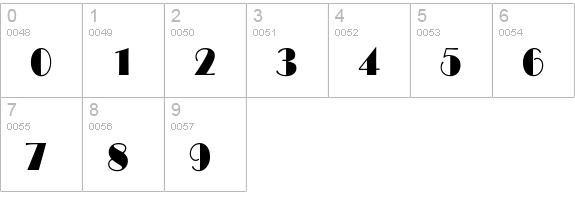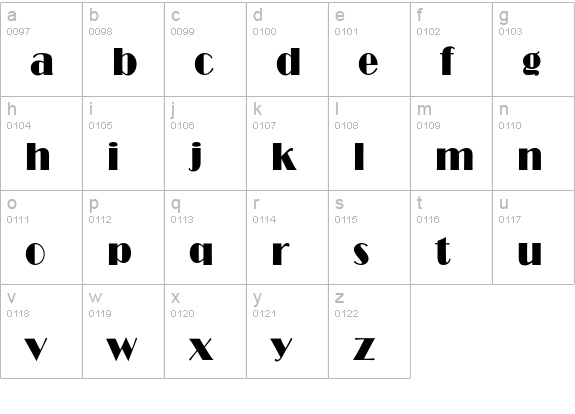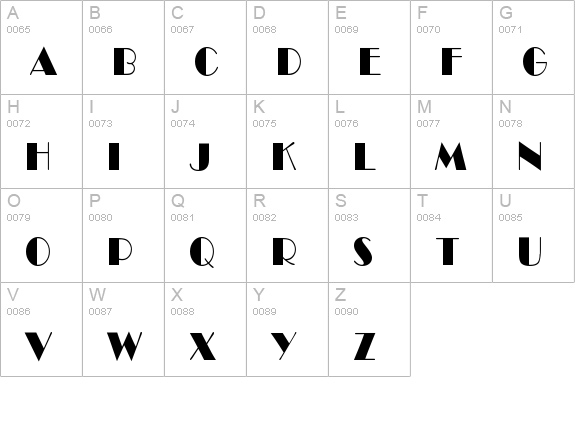
RoyaltonCnd-Normal Font Details
RoyaltonCnd-Normal is the standard, neutral variant in the RoyaltonCnd typeface family \xE2\x80\x94 well suited to general body text, paragraphs, and standard typographic work.
RoyaltonCnd-Normal is a elegant and sophisticated font that exudes a sense of regal charm. Its classic and timeless design makes it perfect for a wide range of projects, from formal invitations to branding materials. The clean lines and subtle curves of RoyaltonCnd-Normal give it a refined and polished look that is sure to elevate any design it is used in. Whether you are looking to add a touch of elegance to your wedding invitations or create a professional logo for your business, RoyaltonCnd-Normal is the perfect choice. Best of all, RoyaltonCnd-Normal is freely available to download at FontsMarket.com. This means that you can easily access this stunning font and start using it in your projects right away. Don't miss out on the opportunity to add a touch of sophistication to your designs with RoyaltonCnd-Normal. Download it today and see the difference it can make!